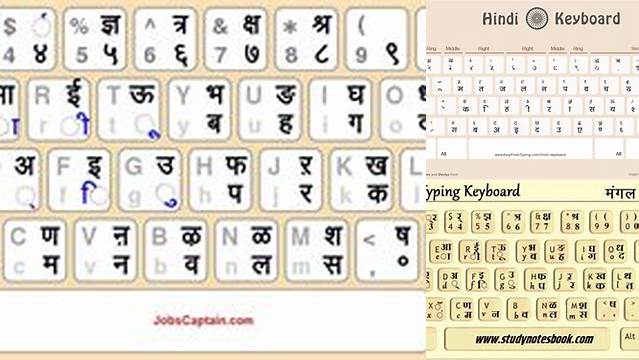
Free Mangal Font Keyboard PDF Download In Hindi
Are you guys looking to download the Mangal font keyboard PDF in Hindi for free? Well, you've come to the right place! Understanding the importance of Hindi typing in today's digital world is crucial, and having the right resources can make all the difference. In this comprehensive guide, we'll dive deep into everything you need to know about the Mangal font, its significance, how to download a Mangal font keyboard PDF, and tips for mastering Hindi typing. So, let's get started and unlock the world of Hindi typography together! Learning to type in Hindi can be a game-changer, especially if you're involved in content creation, documentation, or communication in Hindi-speaking regions. The Mangal font is a widely recognized and accepted font for Hindi typing, making it an essential tool for anyone looking to work with Hindi text. This article will walk you through the steps to download a Mangal font keyboard PDF, understand its layout, and improve your Hindi typing skills. We'll also cover some common issues and provide solutions to ensure a smooth and efficient typing experience. Whether you're a beginner or looking to refine your skills, this guide has got you covered. So, grab a cup of coffee, sit back, and let's delve into the world of Mangal font Hindi typing!
What is Mangal Font and Why is it Important?
The Mangal font is a popular Unicode font widely used for typing in Hindi and other Indian languages. Its significance lies in its compatibility and standardization, making it a go-to choice for various applications, from government documents to everyday communication. Understanding why the Mangal font is so important will help you appreciate its role in the digital landscape. The Mangal font is a Unicode font, which means it supports a wide range of characters and symbols, ensuring consistency across different platforms and devices. Unlike older fonts that might require specific encoding, Mangal font works seamlessly with modern operating systems and software. This universality is a major reason why it’s favored for official documents, websites, and publications. The font's design is also quite readable, making it suitable for long documents and on-screen reading. Its clear and distinct characters reduce eye strain and improve the overall reading experience. Furthermore, Mangal font is the standard font used in many government and official communications in India, which means if you're dealing with any official paperwork or documentation, knowing how to use this font is essential. For students and professionals alike, mastering Mangal font can open up numerous opportunities. From writing reports and essays to creating presentations and official correspondence, the ability to type in Hindi using Mangal font is a valuable skill. It also enables you to participate more effectively in online discussions and forums, reaching a wider audience. In addition to its practical uses, learning Mangal font can also help preserve and promote the Hindi language. By using it in digital communication, we contribute to the language's visibility and relevance in the modern world. This is particularly important in a globalized world where linguistic diversity is often overlooked. So, whether you're a student, professional, or simply someone who loves the Hindi language, understanding and using Mangal font is a worthwhile endeavor. It bridges the gap between traditional script and digital technology, ensuring that Hindi continues to thrive in the digital age.
Understanding the Mangal Font Keyboard Layout
Understanding the Mangal font keyboard layout is crucial for efficient Hindi typing. This section will break down the layout, explain the key mappings, and offer tips on how to memorize the key positions. Grasping the layout can seem daunting at first, but with a systematic approach, you’ll be typing like a pro in no time! The Mangal font keyboard layout is based on the InScript (Indian Script) keyboard standard, which is designed to be used for multiple Indian languages. This means that the layout is somewhat consistent across different languages, making it easier to switch between them once you've mastered one. The keyboard layout is divided into several sections, each containing different types of characters. The main section consists of the Hindi consonants and vowels, which are arranged in a logical manner based on their phonetic properties. You'll notice that similar-sounding characters are often placed near each other, which can help you learn the layout more quickly. In addition to the consonants and vowels, the keyboard also includes keys for special characters, symbols, and numerals. These are usually located in the upper rows and on the right-hand side of the keyboard. It’s important to familiarize yourself with the location of these keys as well, as they are frequently used in Hindi typing. One of the first things you should do when learning the Mangal font keyboard layout is to identify the home row. This is the row of keys where your fingers rest when you're not typing. On a standard QWERTY keyboard, the home row is the one that contains the letters ASDF and JKL;. Knowing the home row helps you maintain proper hand positioning and improves your typing speed and accuracy. To memorize the key positions, start by focusing on the most frequently used characters. These are typically the vowels and the more common consonants. Practice typing simple words and phrases that use these characters, and gradually expand your repertoire as you become more comfortable. There are also several online resources and typing tutorials that can help you learn the Mangal font keyboard layout. These resources often include interactive exercises and games that make the learning process more engaging and fun. Don't hesitate to explore these options and find the ones that work best for you. Another helpful tip is to create a cheat sheet or a physical keyboard layout that you can keep next to your computer while you practice. This will serve as a quick reference guide and help you avoid constantly looking at the screen. Remember, learning the Mangal font keyboard layout takes time and practice. Don't get discouraged if you don't see results immediately. Keep practicing regularly, and you'll gradually build muscle memory and become more proficient at Hindi typing.
Tips and Tricks for Mastering Hindi Typing in Mangal Font
Mastering Hindi typing in Mangal font requires practice, patience, and the right techniques. This section provides valuable tips and tricks to help you improve your typing speed and accuracy. From proper hand positioning to utilizing online resources, we've got you covered! Typing in a new font and language can be challenging, but with the right strategies, you can become proficient in no time. One of the most important aspects of mastering Hindi typing is proper hand positioning. Just like with any typing technique, keeping your hands in the correct position can significantly improve your speed and reduce strain. Make sure your wrists are straight and your fingers are curved over the keys. The home row is your best friend – always return your fingers to it after each keystroke. Another key to success is regular practice. Set aside some time each day to practice typing in Mangal font. Even 15-20 minutes of focused practice can make a big difference over time. Consistency is more important than the duration of each session. You can use online typing tutors or simply type out Hindi text from books or articles. Utilizing online resources is another excellent way to enhance your typing skills. There are numerous websites and applications specifically designed to teach Hindi typing. These resources often offer interactive lessons, typing games, and performance tracking. Explore different options and find the ones that suit your learning style best. Typing tutors can provide personalized feedback and help you identify areas where you need to improve. Additionally, practicing with real-world content can make your learning more practical and engaging. Try typing emails, documents, or social media posts in Hindi. This will not only improve your typing skills but also help you become more comfortable using the language in everyday communication. Pay attention to accuracy as you practice. It’s better to type slowly and accurately than to rush and make mistakes. Accuracy is the foundation of good typing skills, and speed will naturally increase as you become more proficient. If you find yourself making frequent errors, slow down and focus on hitting the correct keys. As you progress, challenge yourself to increase your typing speed gradually. Set small, achievable goals and track your progress. You can use online typing speed tests to measure your words per minute (WPM) and accuracy. Celebrating your milestones can keep you motivated and encourage you to continue improving. Remember to take breaks when you’re practicing. Typing for extended periods can lead to fatigue and strain. Stand up, stretch your hands and fingers, and give your eyes a rest. Short, frequent breaks can help you stay focused and prevent injuries. Finally, be patient and persistent. Learning to type in Mangal font takes time and effort. Don’t get discouraged by challenges or setbacks. Keep practicing, stay positive, and you’ll eventually achieve your goals. With dedication and the right techniques, you can master Hindi typing in Mangal font and unlock a new world of communication and expression.
Common Issues and Solutions While Using Mangal Font
While using Mangal font, you might encounter some common issues. This section addresses these problems and provides practical solutions to ensure a smooth typing experience. From font display issues to keyboard mapping discrepancies, we'll help you troubleshoot and overcome these challenges. No tech journey is without its bumps, but knowing how to navigate them can make all the difference! One common issue that users face is the font not displaying correctly. This can happen if the Mangal font is not properly installed on your system or if the software you’re using doesn’t support Unicode fonts. The first step is to ensure that the Mangal font is installed on your computer. You can usually find it in the fonts folder in your operating system’s control panel or settings. If it’s not installed, you can download it from a reliable source and install it manually. Once the font is installed, make sure that the software you’re using is set to use the Mangal font for Hindi text. In word processors like Microsoft Word or Google Docs, you can select the Mangal font from the font dropdown menu. If you’re still having issues, try restarting your computer. Sometimes a simple reboot can resolve font display problems. Another common issue is incorrect keyboard mapping. This means that the characters you’re typing don’t match the characters that appear on the screen. This can be frustrating, especially when you’re trying to type quickly. The most common cause of this issue is using the wrong keyboard layout. Make sure that your system’s keyboard layout is set to Hindi InScript or Mangal. You can usually change the keyboard layout in your operating system’s settings or control panel. If you’re using a physical keyboard with Hindi characters, ensure that the keyboard layout setting matches the physical layout. If you’re using an on-screen keyboard, double-check that the correct layout is selected. Another potential cause of incorrect keyboard mapping is using outdated software or drivers. Make sure that your operating system and keyboard drivers are up to date. You can usually find updates in your system settings or on the manufacturer’s website. Sometimes, certain software or applications may interfere with the Mangal font keyboard mapping. If you’re experiencing issues in a specific program, try closing other applications and see if that resolves the problem. If the issue persists, you may need to consult the software’s documentation or support resources. In some cases, users may encounter issues with character spacing or alignment. This can make the text look uneven or difficult to read. To fix this, try adjusting the font size, line spacing, or paragraph settings in your word processor or text editor. Experiment with different settings until the text looks properly spaced and aligned. If you’re still having trouble, try using a different font size or style. Sometimes, a slight change in font settings can make a big difference. Remember, troubleshooting technical issues can be a process of trial and error. Don’t get discouraged if you don’t find a solution immediately. Be patient, try different approaches, and consult online resources or support forums if needed. With persistence and the right strategies, you can overcome most common issues and enjoy a smooth Mangal font typing experience.
In conclusion, downloading and using the Mangal font keyboard PDF in Hindi is an essential step for anyone looking to engage with Hindi text digitally. We've covered the importance of the Mangal font, how to download the keyboard layout, understanding the layout, tips for mastering typing, and solutions to common issues. So, go ahead, download the PDF, and start typing in Hindi with confidence! Mastering the Mangal font can open up a world of opportunities for communication, content creation, and cultural preservation. By understanding the significance of the Mangal font, you’re not just learning to type in Hindi; you’re also connecting with a rich linguistic heritage. The Mangal font’s compatibility and standardization make it a valuable tool for various applications, from official documents to personal correspondence. Whether you’re a student, professional, or language enthusiast, having the ability to type in Hindi using Mangal font is a valuable asset. Downloading the Mangal font keyboard PDF is the first step towards achieving this goal. With a readily available keyboard layout, you can familiarize yourself with the key mappings and start practicing your typing skills. The PDF serves as a handy reference guide, allowing you to quickly locate characters and improve your accuracy. Understanding the Mangal font keyboard layout is crucial for efficient typing. The layout is based on the InScript standard, which is designed to be consistent across multiple Indian languages. By learning the layout, you’ll be able to type not only in Hindi but also in other Indian languages that use the InScript standard. Tips and tricks for mastering Hindi typing in Mangal font include proper hand positioning, regular practice, and utilizing online resources. By following these guidelines, you can improve your typing speed and accuracy, and become more comfortable with the Mangal font. Remember, consistency is key – the more you practice, the more proficient you’ll become. While using Mangal font, you may encounter some common issues, such as font display problems or incorrect keyboard mapping. By understanding these issues and knowing how to troubleshoot them, you can ensure a smooth typing experience. Don’t hesitate to consult online resources or seek help from support forums if you encounter any difficulties. Ultimately, the ability to type in Hindi using Mangal font is a valuable skill that can enhance your communication and cultural engagement. It allows you to participate more effectively in online discussions, create content in Hindi, and connect with a wider audience. So, download the Mangal font keyboard PDF, start practicing, and embrace the world of Hindi typography. With dedication and the right resources, you can master Hindi typing and unlock new opportunities for personal and professional growth.